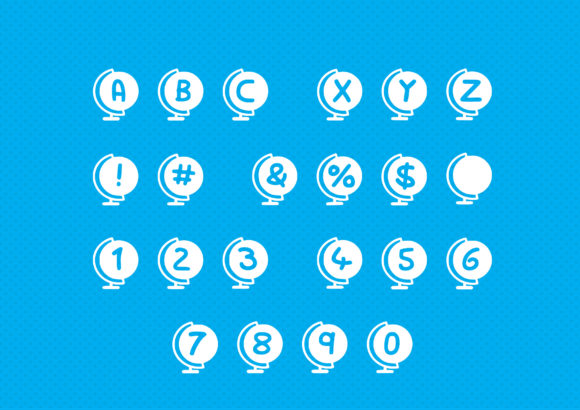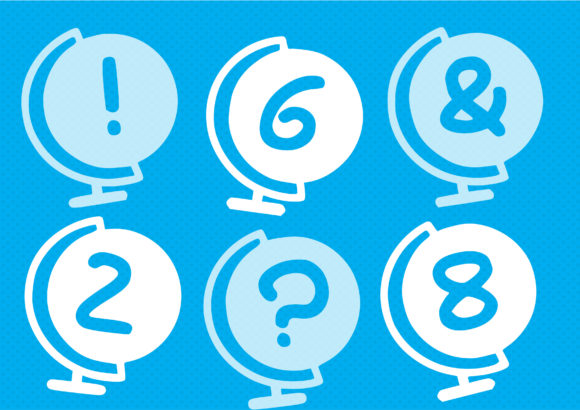
Introduction to Play Globe Font
Do you remember that moment when you’re working on a creative project and the perfect font suddenly pops up, making everything fall into place? It’s like a breath of fresh air, and it’s exactly what happens when you come across the Play Globe Font. This beautiful, high-quality font is more than just a design resource – it’s a key to unlocking endless possibilities in your next project.
Whether you’re designing a map for a travel agency, creating a branding campaign for a worldwide company, or simply looking for a unique touch for your environment-related project, the Play Globe Font is the perfect companion. With its transparent background and sleek design, it’s a versatile tool that can elevate any creative endeavor. And the best part? It’s available for free download, making it an absolute must-have for designers looking to take their work to the next level.
Key Features of Play Globe Font
- High-quality, professional font suitable for creative projects and presentations.
- Available in a transparent background option, ideal for overlaying on images or videos.
- High-resolution font, suitable for use at any size, from small text to large headlines.
- Unique, modern design that adds a touch of creativity to any project or presentation.
Honest Review: Play Globe Font
I recently came across the Play Globe Font, and I must say it’s a great addition to any designer’s toolkit. This font is perfect for creative projects that require a unique touch.
- ✨ The Play Globe Font has a transparent background, making it easy to use with any design resource.
- ✨ The high quality of the font ensures that it will look great on any device or screen.
- ⚠️ The font may not be suitable for all types of projects, especially those that require a more formal tone.
- ⚠️ Some users may find the font’s unique style to be too playful or distracting.
Overall, I’m impressed with the Play Globe Font. It’s a great design resource that can add a lot of creativity to any project. While it may have some limitations, I think it’s definitely worth checking out. If you’re looking for a unique font to spice up your designs, the Play Globe Font is definitely worth considering.
Tips for Getting the Most Out of Play Globe Font
For the best results, use the Play Globe Font on a transparent background to create a stunning visual effect. You can also experiment with different font sizes and styles to add depth and interest to your design.
The Play Globe Font is perfect for creating eye-catching titles, headings, and logos for creative projects such as branding, advertising, and social media graphics. It’s also great for adding a touch of elegance to presentations, reports, and documents.